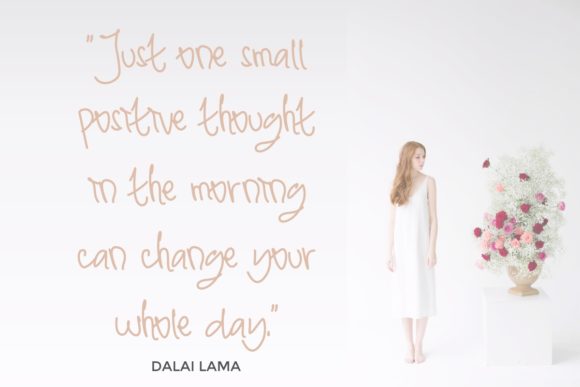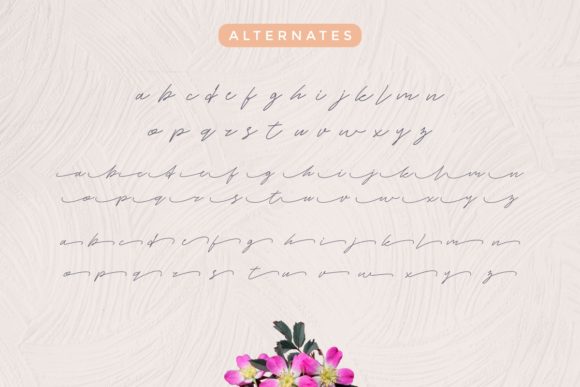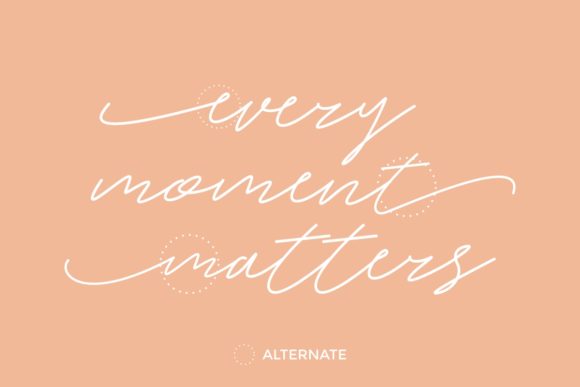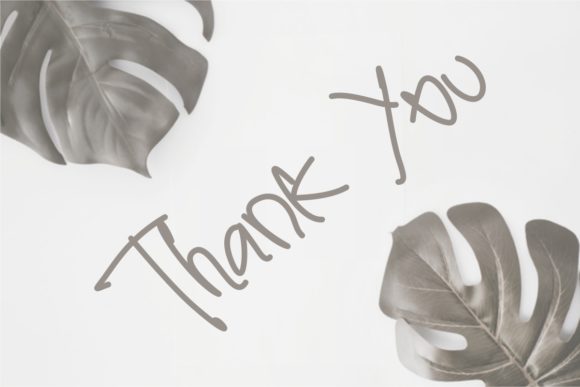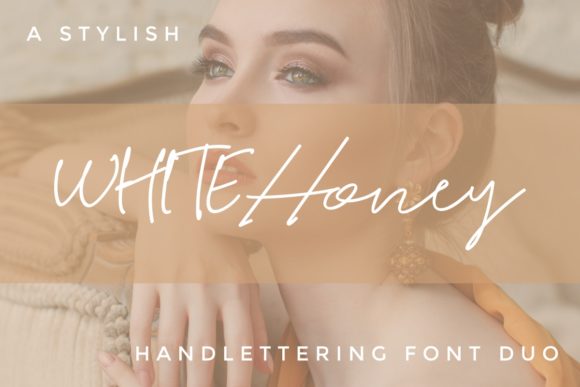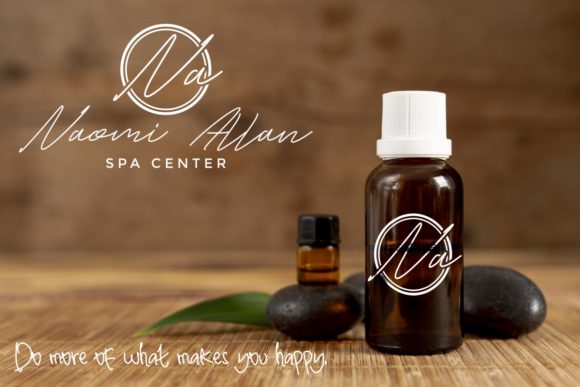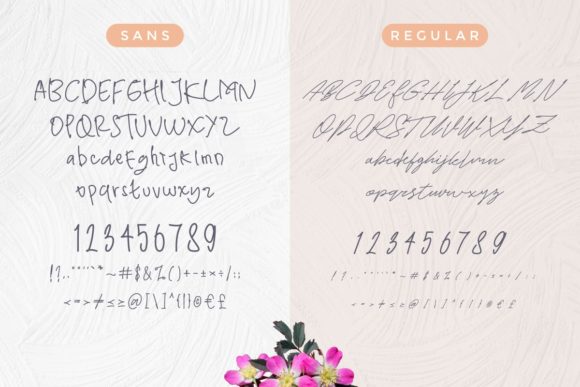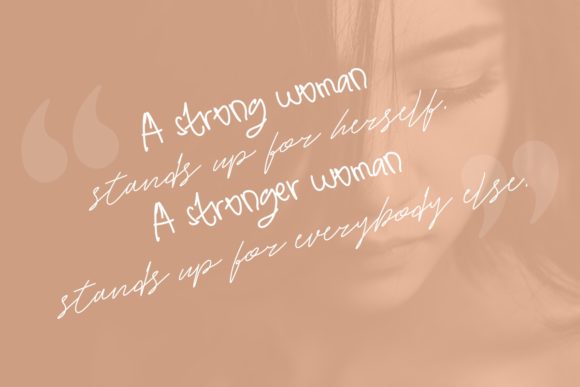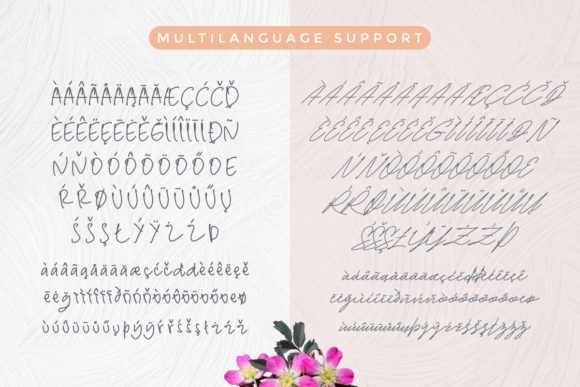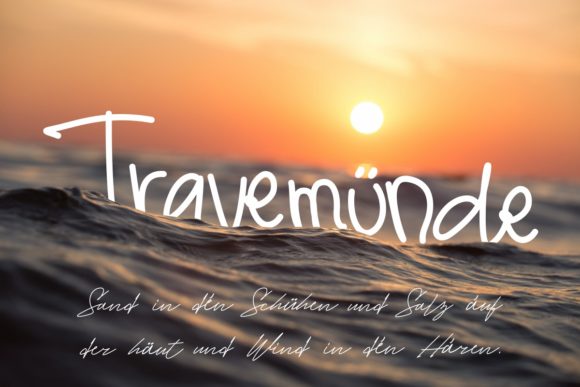
White Honey Duo Font
About White Honey Duo Font
White Honey duo is a match made in heaven, the bold White Honey Sans perfectly complements Whitehoney Script’s more delicate style. Combining these two fonts on your next design will give your next design a balanced and stylish feel.